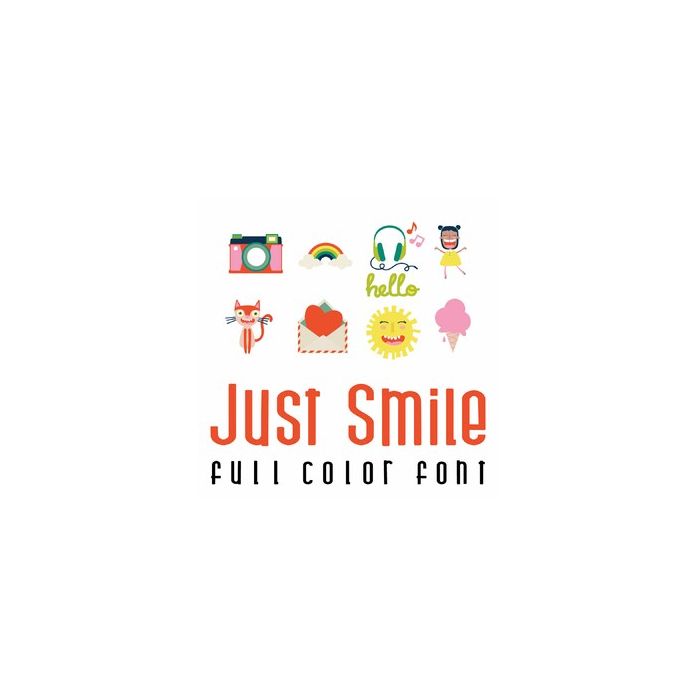
This full color font was created to make you smile, which features fun happy elements all doing some of your favorite pastimes. Perfect for card making, scrapbooking, parties, planners and more!